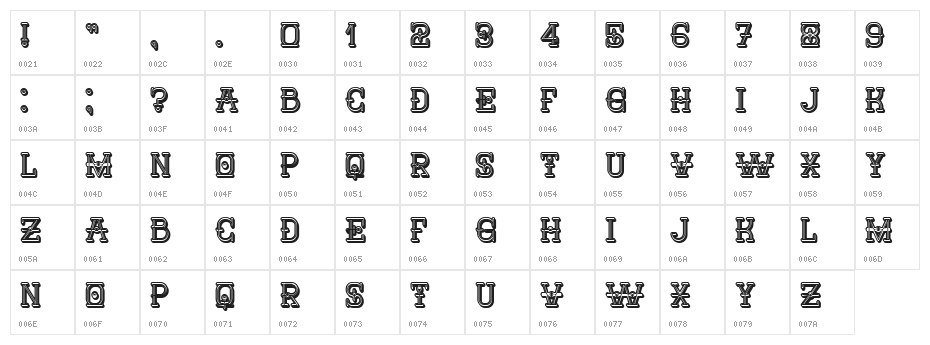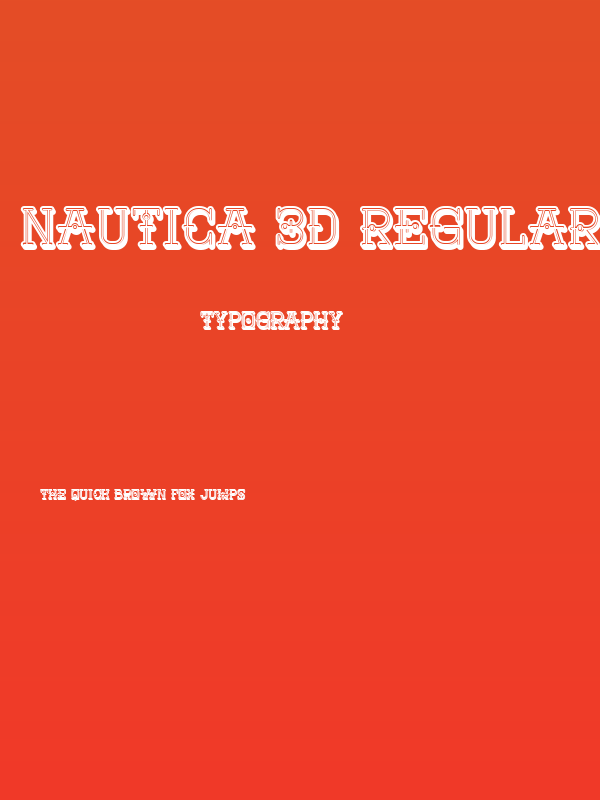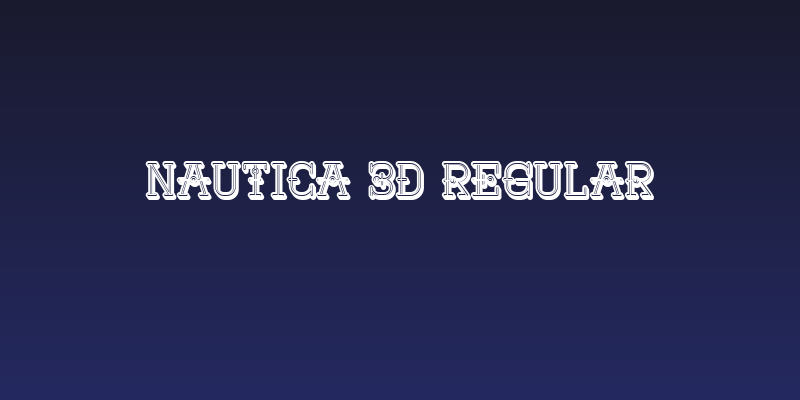
Nautica 3D Regular Font
Nautica 3D Regular Description
This font features a bold, three-dimensional design with a strong presence. Each character is outlined with a thick border, creating a shadow effect that gives depth and a sense of movement. The style is reminiscent of vintage signage, with a playful yet structured appearance. The uppercase letters are particularly striking, with consistent proportions and a balanced weight distribution. The numerals and special characters maintain the same boldness and dimensionality, ensuring uniformity across all glyphs. This font is ideal for projects that require a standout, eye-catching typeface.
| Proposed Projects | Ideal for posters, logos, and branding that require a bold, standout typeface. |